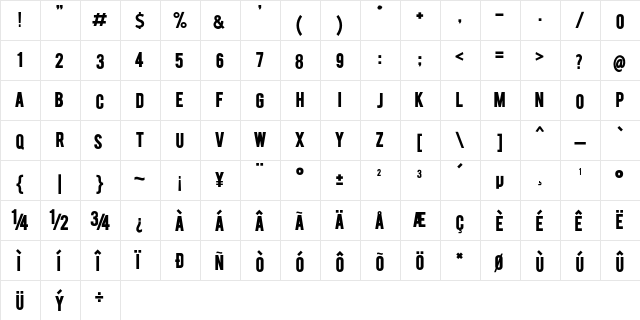
BERRYBOLD Bold
Design Context for BERRYBOLD Typeface
BERRYBOLD takes a measured approach to typography — its balanced proportions and neutral character make it a reliable workhorse for both digital and print work. Its bold stroke weight gives it real presence on the page.